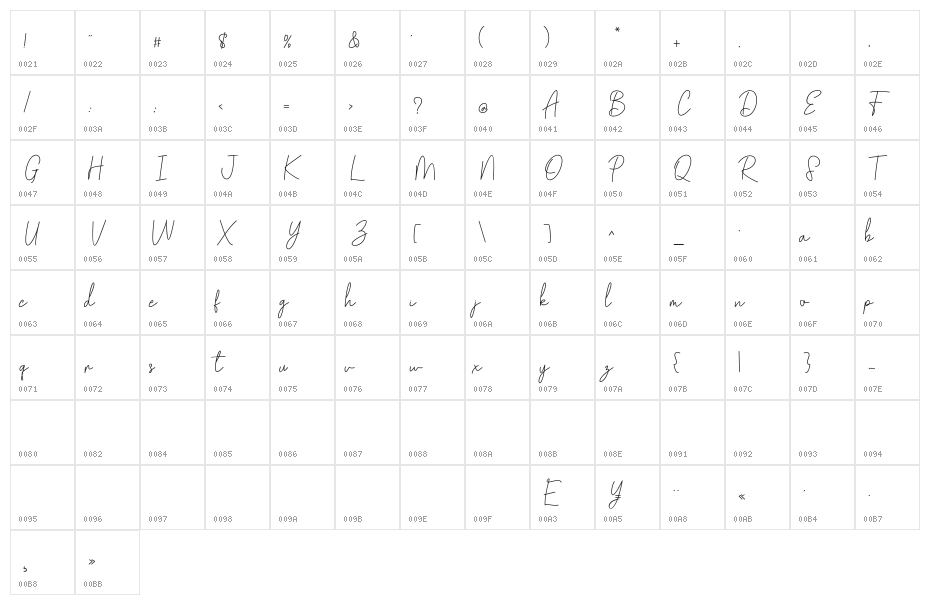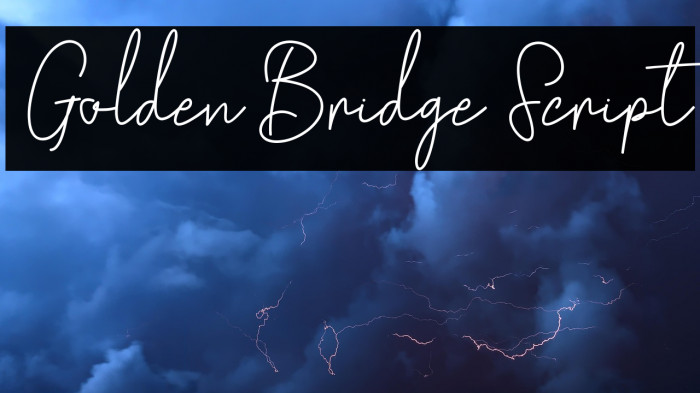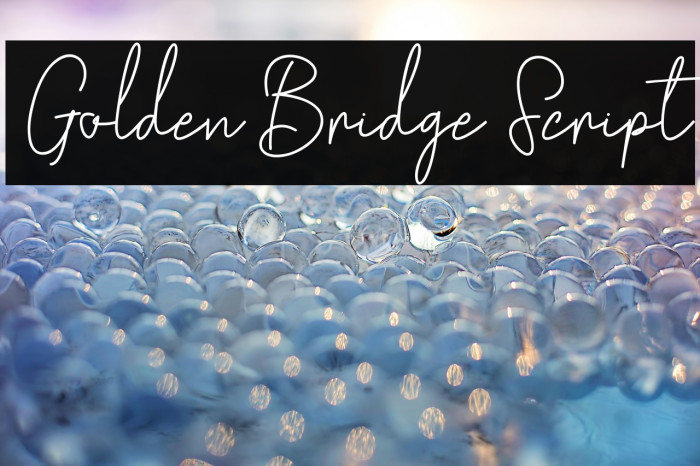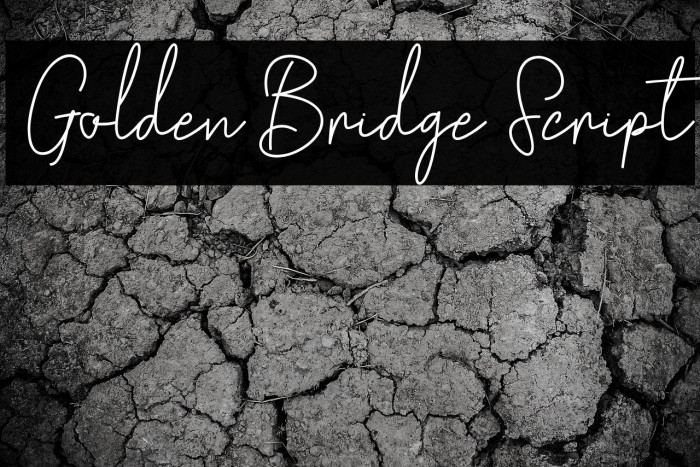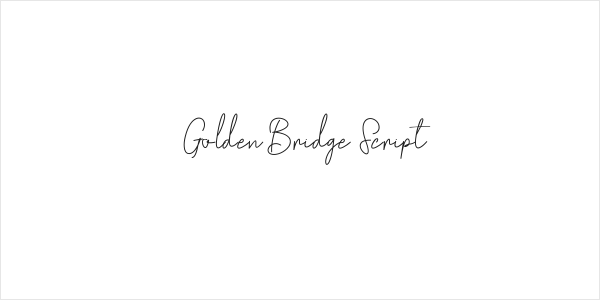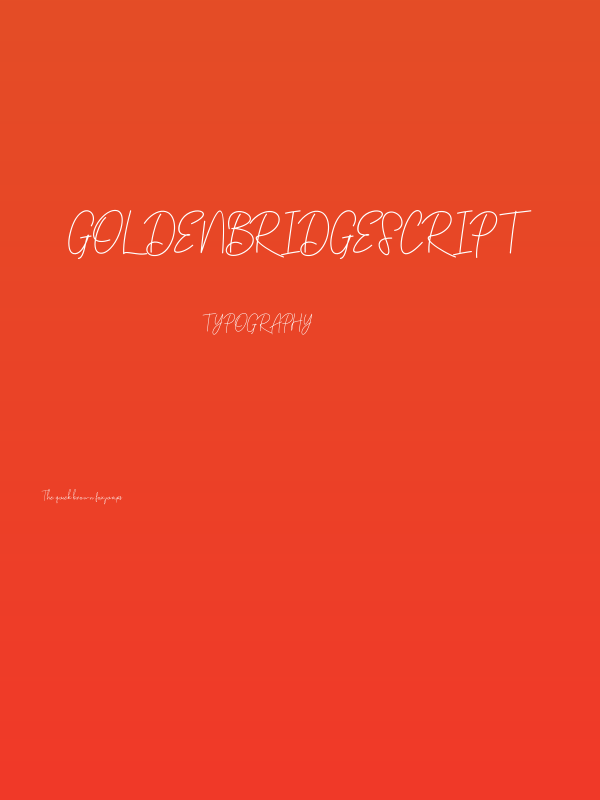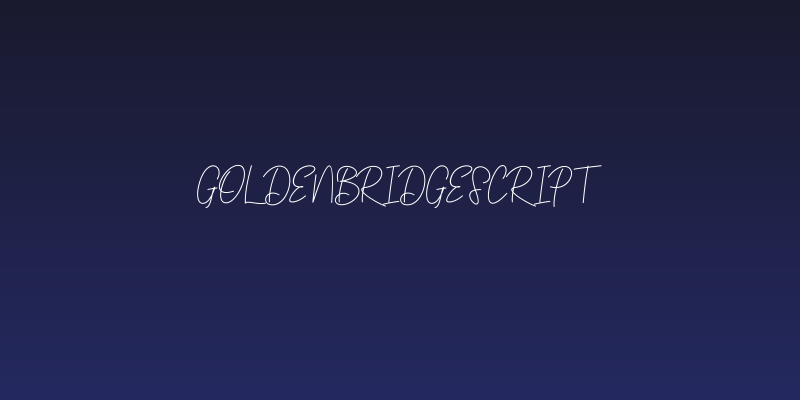
GoldenBridgeScript Font
GoldenBridgeScript Description
This elegant script font features a flowing, handwritten style that exudes sophistication and charm. The characters are gracefully connected, with smooth curves and a natural rhythm that mimics the fluidity of cursive handwriting. The uppercase letters are slightly more embellished, adding a touch of flair, while the lowercase letters maintain a consistent and harmonious appearance. The font's thin strokes and delicate lines create a light and airy feel, making it ideal for projects that require a personal and artistic touch. The special characters are seamlessly integrated, maintaining the overall aesthetic of the font.
| Overall Style | Elegant, Artistic |
| Proposed Projects | Ideal for wedding invitations, greeting cards, personal branding, and elegant packaging designs. |